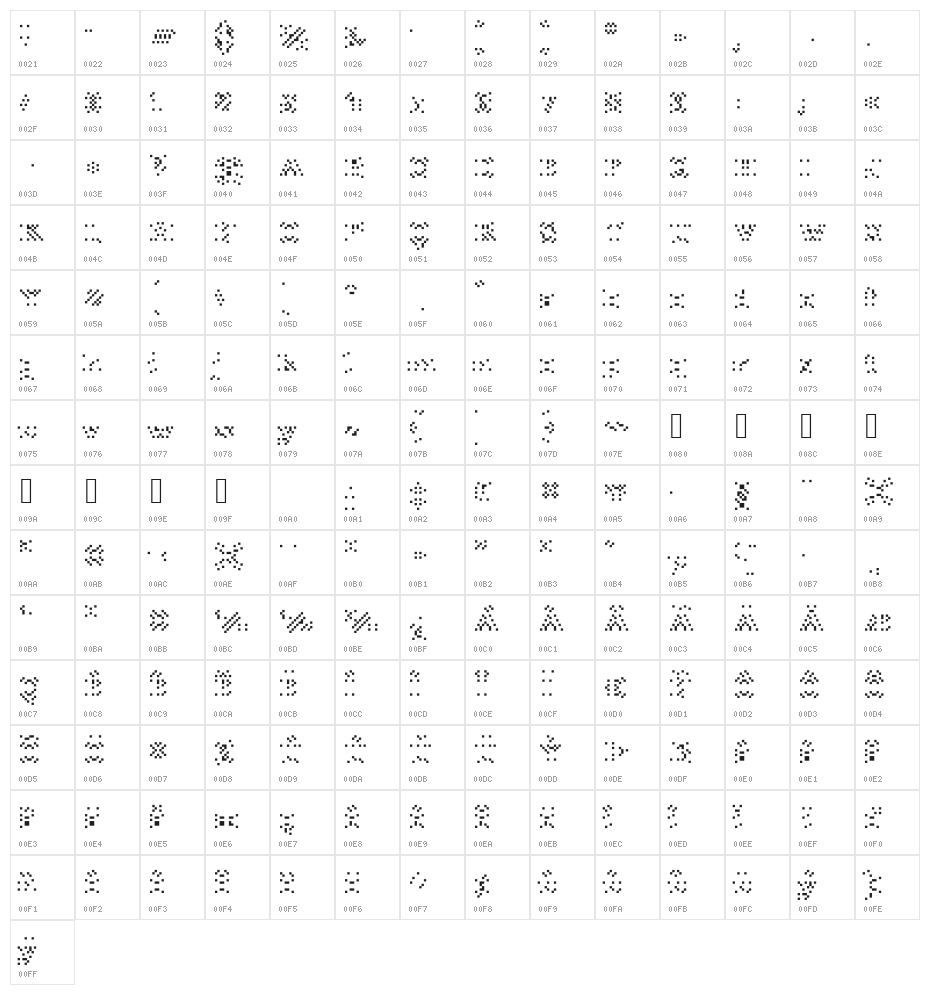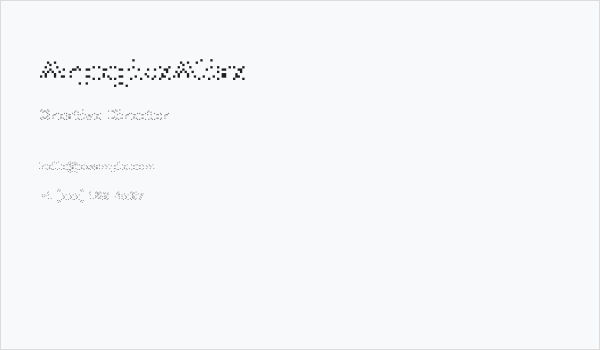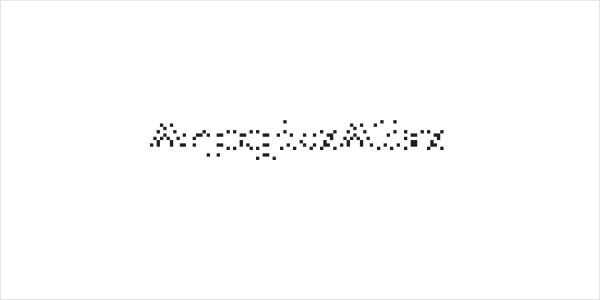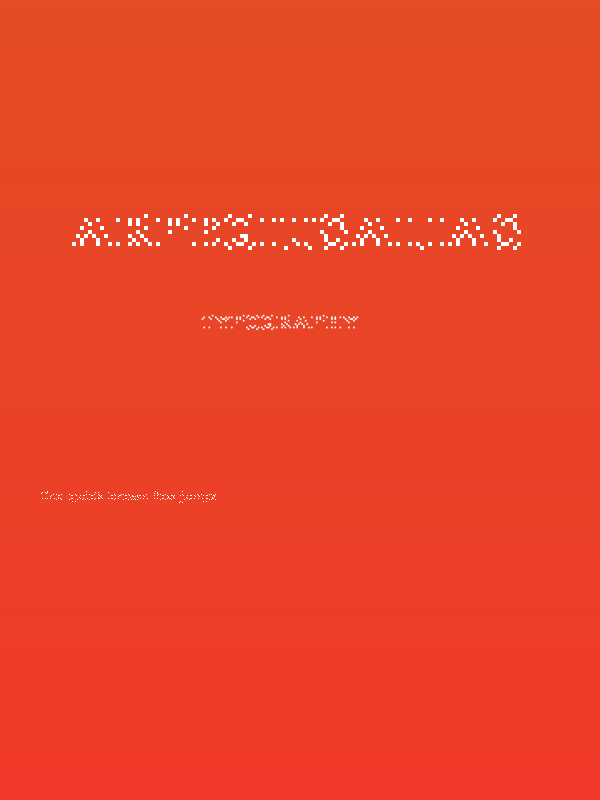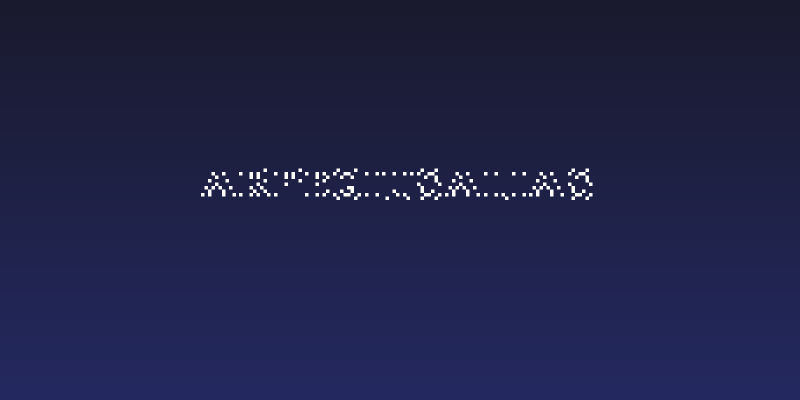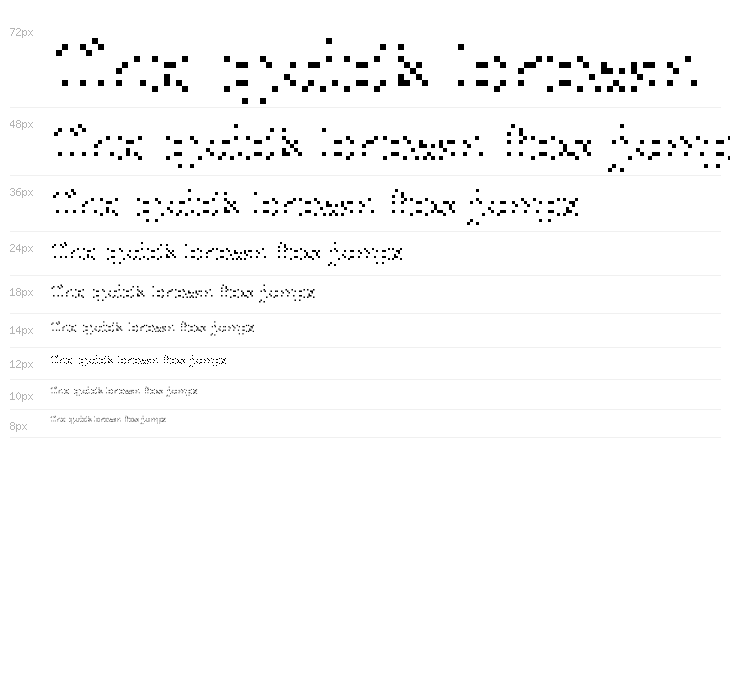
ArpegiusAlias Font
ArpegiusAlias Description
This font features a pixelated, dot-matrix style reminiscent of early digital displays and typewriters. Each character is composed of a grid of dots, creating a retro, tech-inspired aesthetic. The uppercase and lowercase letters maintain a consistent height, contributing to a uniform appearance. Numbers and special characters follow the same design principle, ensuring cohesive visual harmony across all elements. The font's unique style is both nostalgic and modern, making it suitable for projects that aim to evoke a sense of vintage technology or digital nostalgia.
| Use Case | Logos, Headlines, Digital Art |
| Proposed Projects | Ideal for digital art, retro-themed designs, video game graphics, and tech-related branding. |